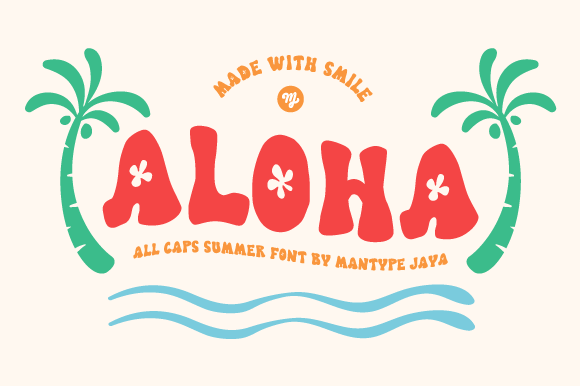
Discover the Playful Charm of Aloha Font
Summer is here, and you know what that means – sunshine, beach vibes, and a dash of playfulness in our designs. I still remember the time I was working on a summer-themed project for a client, and I just couldn’t find the right font to capture that carefree spirit. That’s when I stumbled upon Aloha Font, and it instantly became my go-to choice. In this article, we’ll dive into the world of Aloha Font, exploring its features, uses, and some helpful tips for getting the most out of this delightful display font.
A Personal Review of Aloha Font
So, what makes Aloha Font so special? Let’s take a closer look.
What I Love About Aloha Font
- ✨ Playful and Quirky: Aloha Font has a unique, hand-crafted feel that’s perfect for adding a touch of personality to your designs.
- ✅ Thick and Bold: This font is designed to make a statement, with thick lines and a bold presence that’s perfect for headlines and titles.
- 🌞 Summer Vibes: Aloha Font embodies the carefree spirit of summer, making it an excellent choice for seasonal designs, party decorations, and more.
While Aloha Font is an excellent choice for many projects, there are a few things to keep in mind:
- 🤔 Limited Use Cases: Due to its bold and playful nature, Aloha Font might not be the best fit for more formal or professional designs.
- ⚠️ Legibility at Small Sizes: As with many display fonts, Aloha Font can become less legible at smaller sizes. Be sure to test it in your design to ensure it works well for your specific needs.
- Explore OpenType features, such as glyphs and stylistic alternates, to add more variety to your text.
Aloha Font comes with a range of OpenType features and glyphs that can help you take your designs to the next level. Here are a few tips for accessing these features:
The Story Behind Aloha Font
Aloha Font was designed with one goal in mind: to capture the carefree spirit of summer. The designer, inspired by the sunny beaches and laid-back vibes of Hawaii, created a font that’s perfect for adding a touch of warmth and personality to your designs. Whether you’re working on a summer-themed project or just want to add some fun to your designs, Aloha Font is an excellent choice.
| Author | Mantype Jaya |
- Q: What type of designs is Aloha Font best suited for?
- Aloha Font is perfect for summer-themed designs, party decorations, merchandise, and more.
- Q: Is Aloha Font available in different weights or styles?
- Aloha Font is a display font, and its weight and style are part of its charm. However, you can experiment with different effects and filters to achieve different looks.